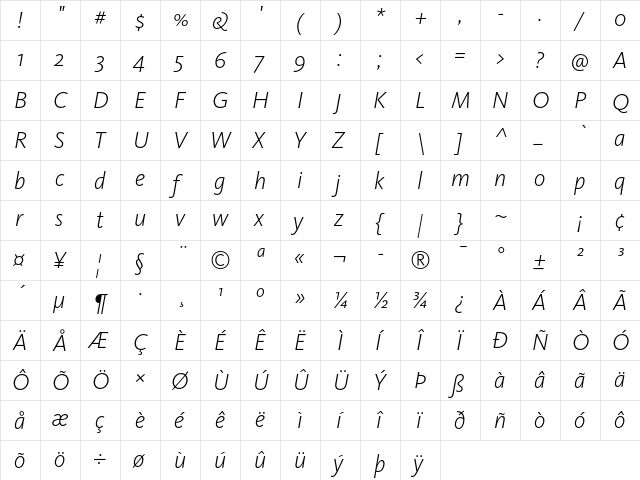
KievitOT-LightItalic Regular
| Designer | Mike Abbink |
Design Context for KievitOT-LightItalic Typeface
KievitOT-LightItalic is a composed and adaptable typeface that performs quietly and consistently across a wide range of design contexts. Its italic angle brings a sense of urgency and motion to the letterforms. The delicate stroke weight brings airiness and refinement to layouts.
Pro Tip: Use KievitOT-LightItalic for emphasis, pull quotes, and subheadings where its slanted energy can add rhythm to the layout.